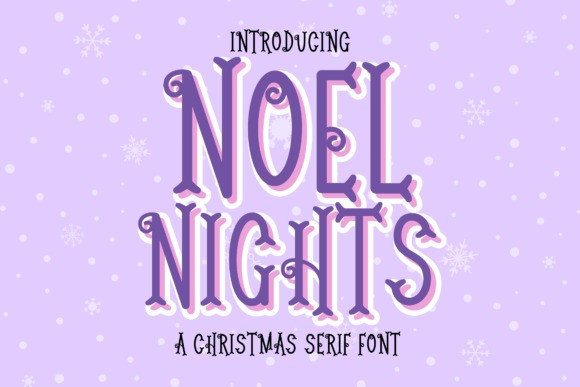
Noel Nights Font
Designer: IngingDigitalArt
Noel Nights Font is a tall, elegant serif font crafted in all uppercase letters. With its refined lines, classic serifs, and subtle vintage charm, it captures the warm, magical spirit of Christmas nights filled with twinkling lights and festive wonder. Perfect for holiday invitations, seasonal branding, gift packaging, greeting cards, and storybook-style titles that blend timeless elegance with cozy holiday cheer.
Use Noel Nights to create striking headlines and enchanting designs that feel like stepping into a classic Christmas tale—full of warmth, sparkle, and nostalgic charm.